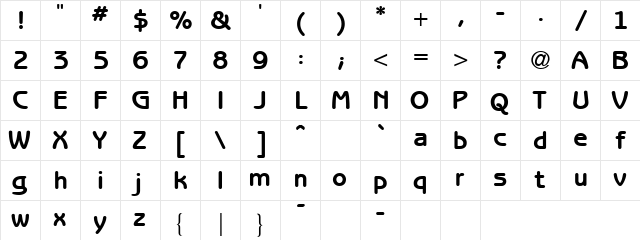
BERTHOLD Regular
Design Context for BERTHOLD Typeface
BERTHOLD offers clean, dependable letterforms without strong stylistic allegiance, making it a practical choice for designers who need flexibility.